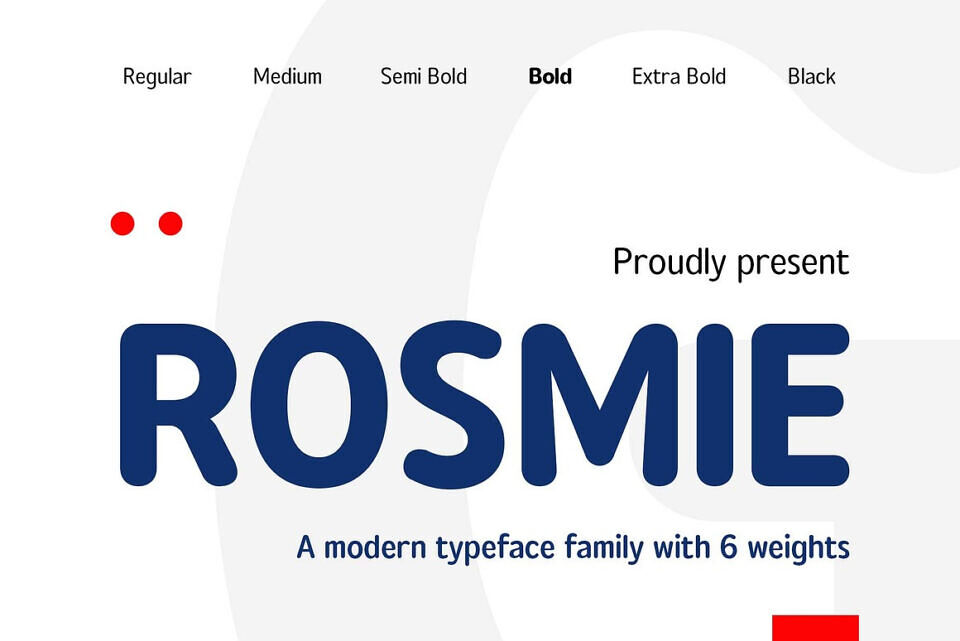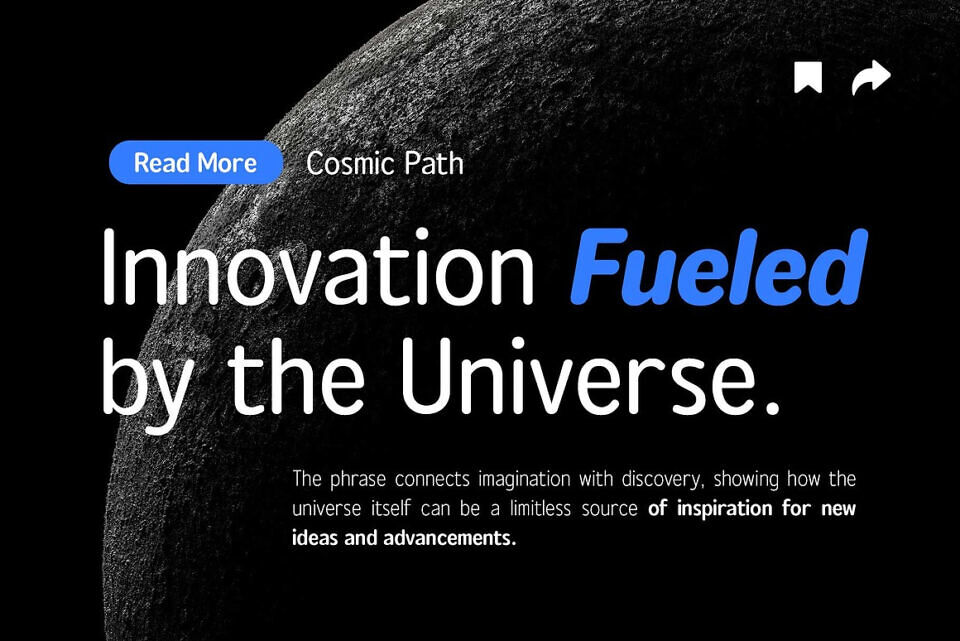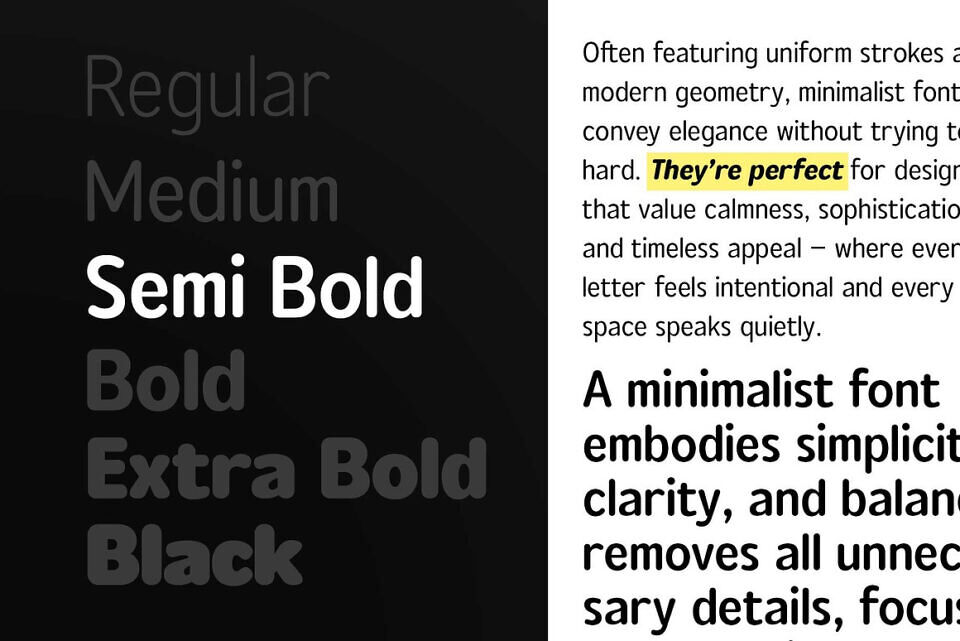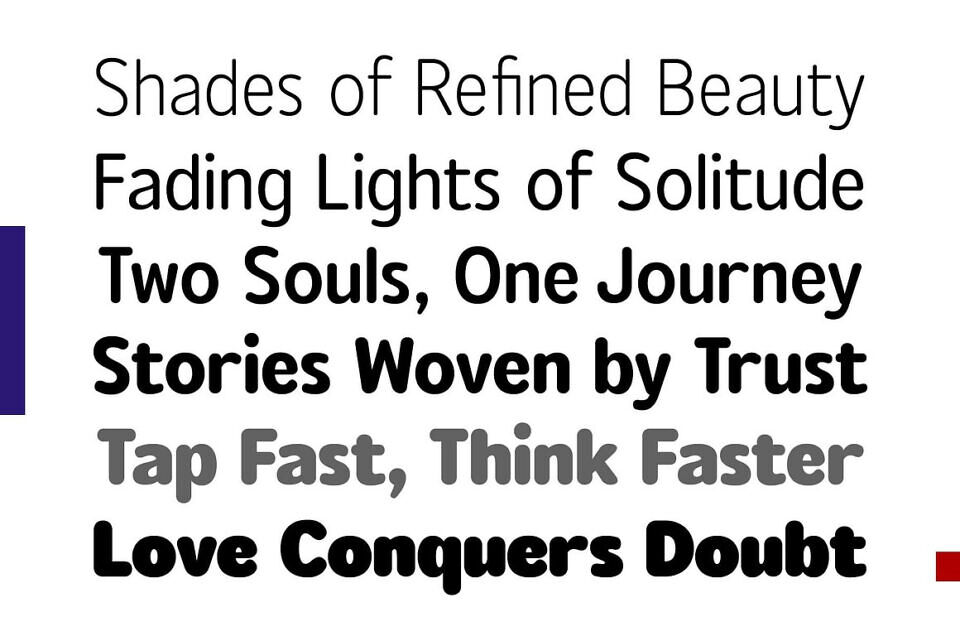
Rosmie is a rounded sans-serif family inspired by classic typefaces from the 1970s. It is thoughtfully designed not only as a display font but also with readability in mind, making it suitable for body text as well.
This font offers a clean yet playful look that can be applied to various projects such as magazines, logos, books, labels, posters, websites, and branding materials. There are 6 weights from Regular to Black, includes slanted styles for added versatility.